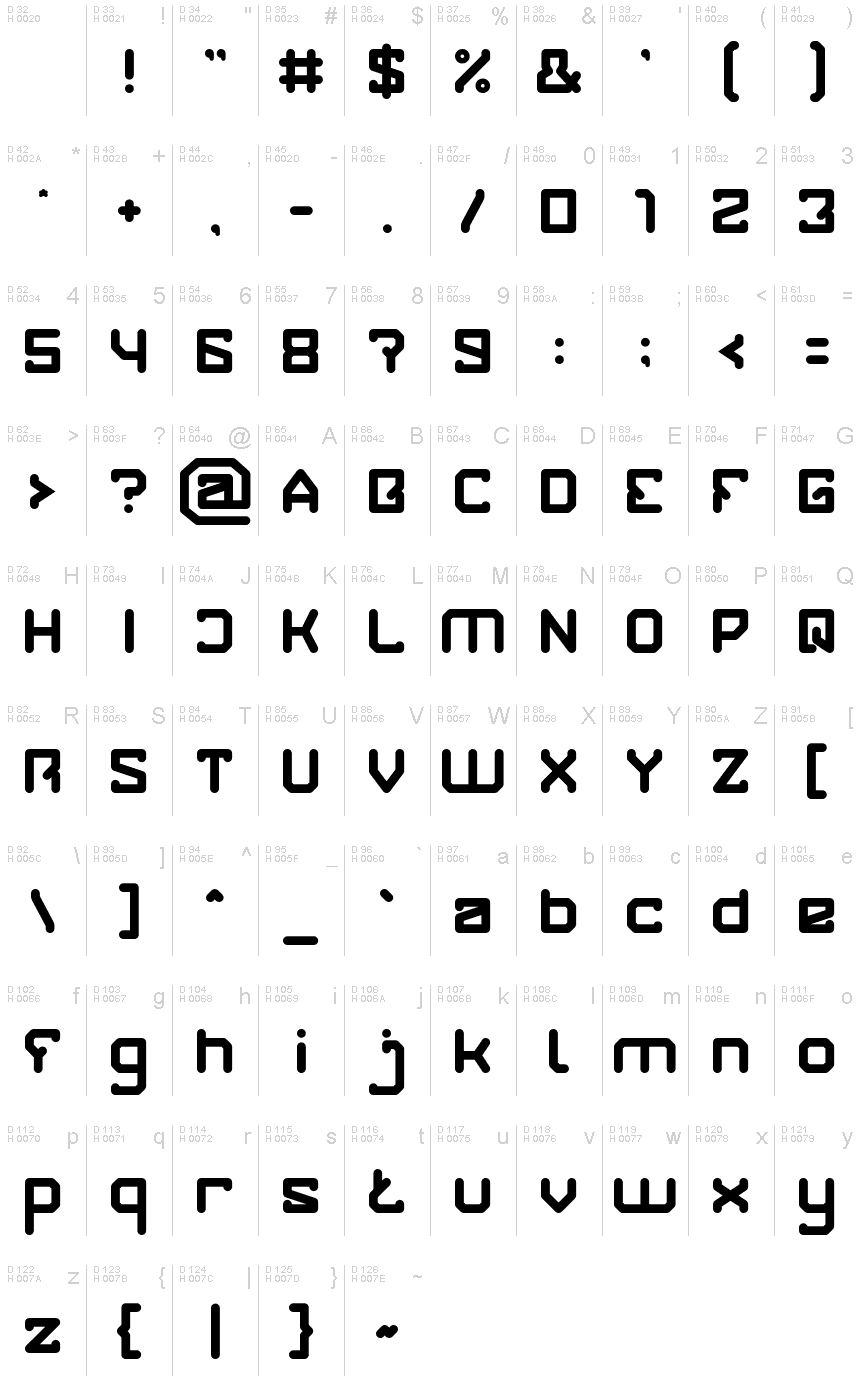
FIREBUG
Firebug, a futuristic display font by weknow, is the perfect choice for projects that crave a cool and bold vibe.
With its expanded width and modern design, Firebug adds a touch of sci-fi to your favorite designs. Whether you're working on movie posters, gaming graphics, or tech-related websites, this standout font will surely make an impact.
Let Firebug ignite your creativity and set your designs on fire with its unique and stylish appeal.